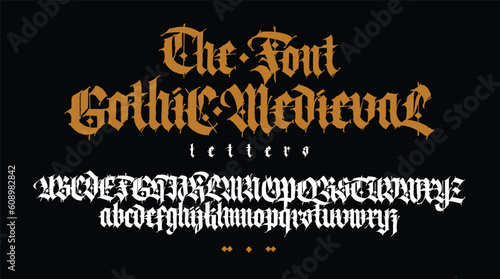
Gothic font from Latin letters. Vector. English alphabet. Medieval European style. English alphabet 9th-19th century. Symbols and signs for monogram and design. Modern calligraphy.